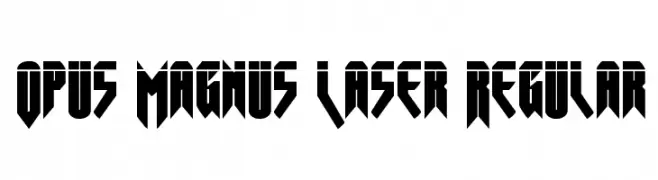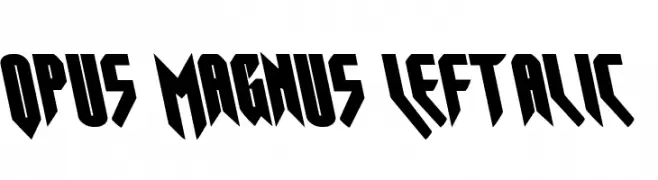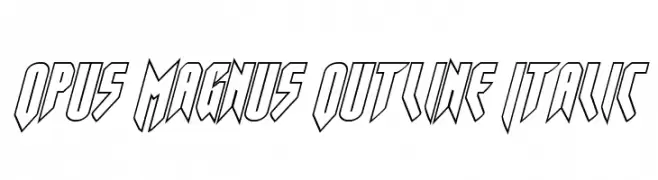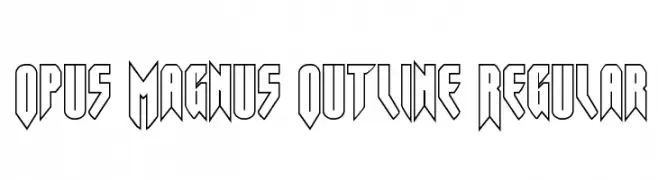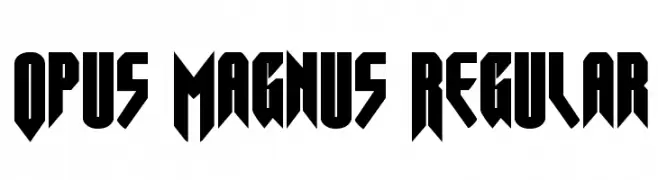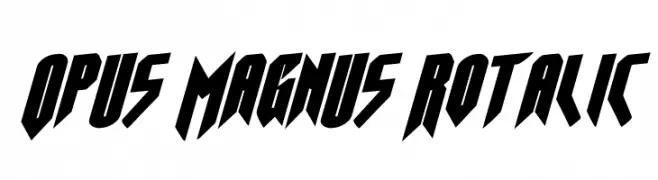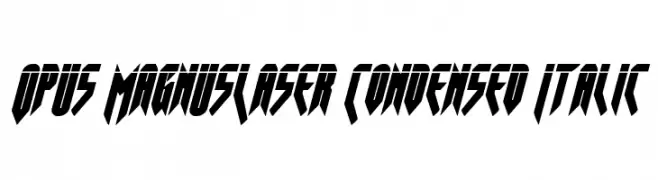
A bold, geometric font with sharp angles and a futuristic style.
A bold, angular, and slanted font with a futuristic and dynamic style.
A bold, geometric outline font with a condensed and modern style.
A bold, angular, and condensed outline font with an italic slant.
A bold, angular outline font with a futuristic and dynamic italic style.
A bold, geometric outline font with sharp angles and a futuristic look.
A bold, angular font with a geometric and modern design.
A bold, angular font with a futuristic and aggressive style.
A bold, angular, and futuristic font with high contrast and condensed width.
A bold, angular, and italicized font with a futuristic and dynamic style.